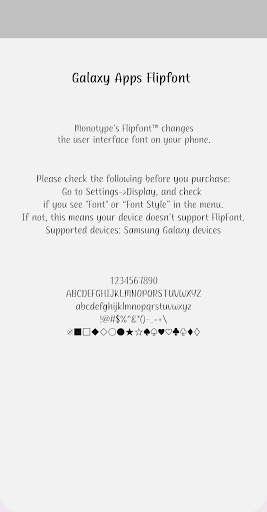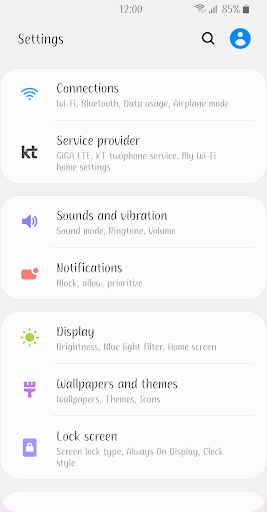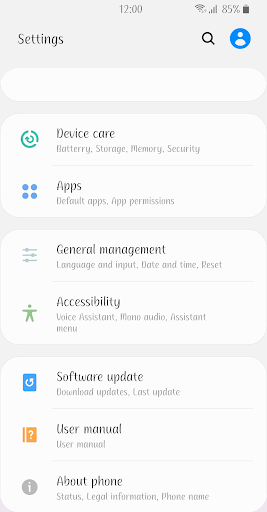
ZFadagio™ Latin Flipfont
RtLemonSorbet
RtLemonSorbet is a stylish and friendly sans-serif typeface with good readability. Refresh your device by applying this font. Enjoy!